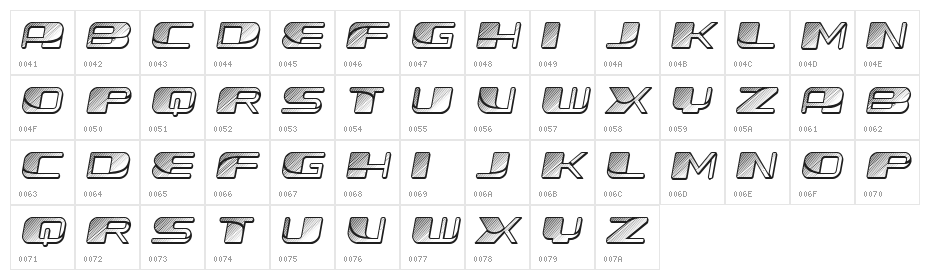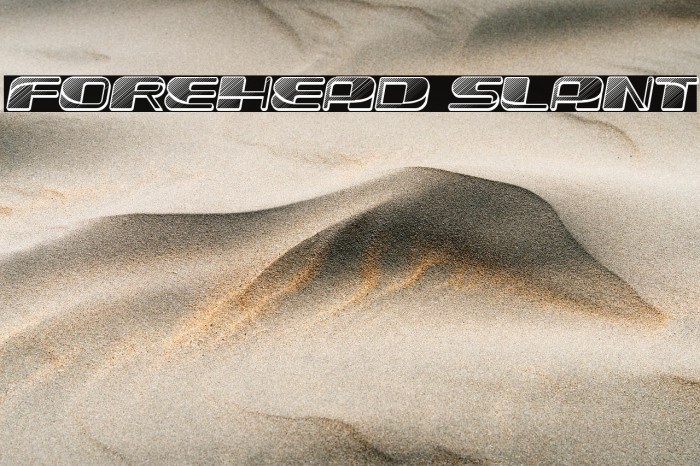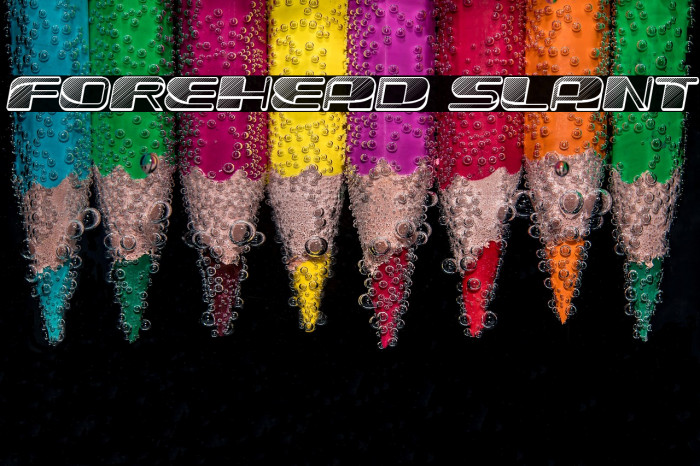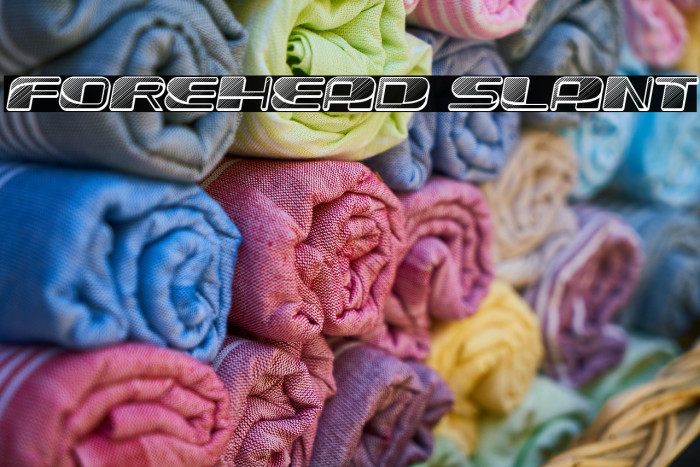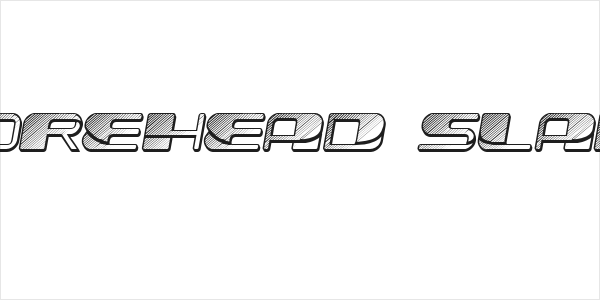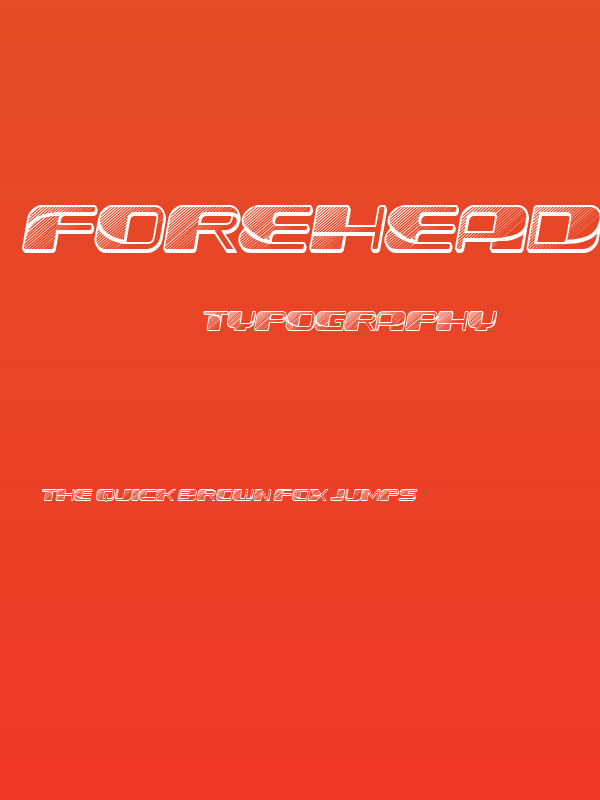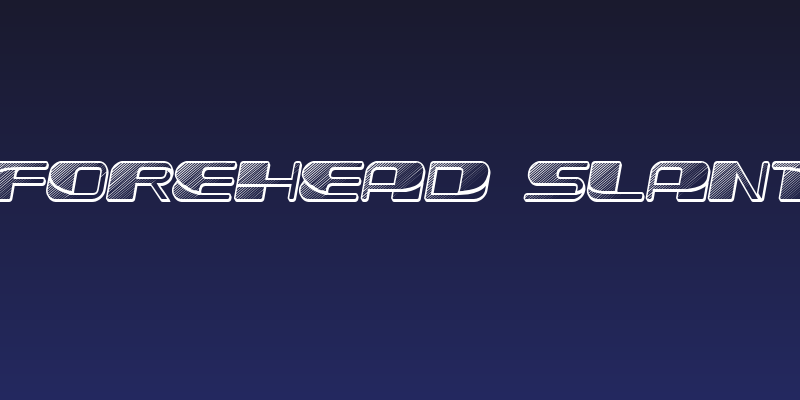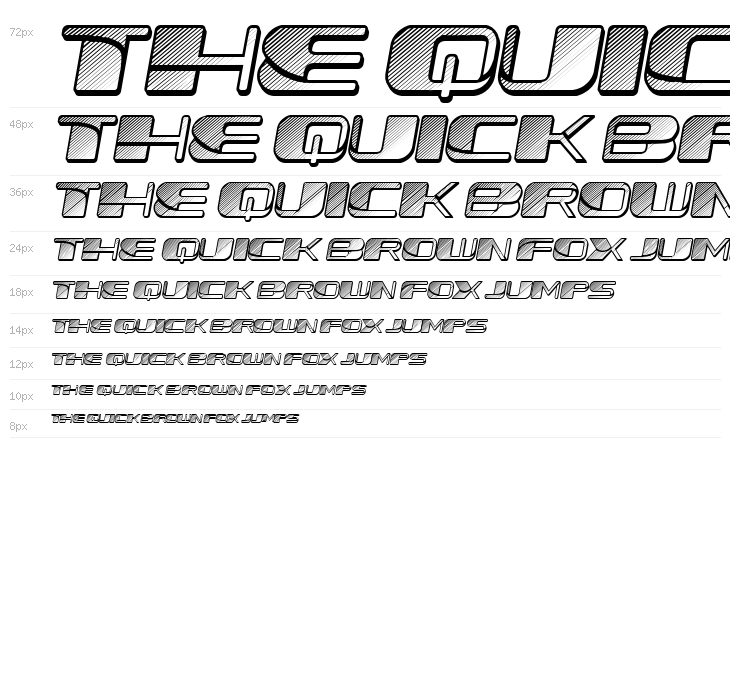
Forehead 1 Slant Font
Forehead 1 Slant Description
This font features a futuristic and dynamic design with a distinct slant, giving it a sense of motion and speed. The characters are outlined with a bold, solid line and filled with diagonal hatching, adding texture and depth. The uppercase letters are uniform in height, with sharp angles and clean lines that create a sleek and modern appearance. The lowercase letters maintain the same stylistic elements, ensuring consistency throughout. The numerals and special characters are crafted to match the overall aesthetic, making this font versatile for various applications.
| Proposed Projects | Ideal for sci-fi themed projects, video game titles, tech branding, and dynamic posters. |